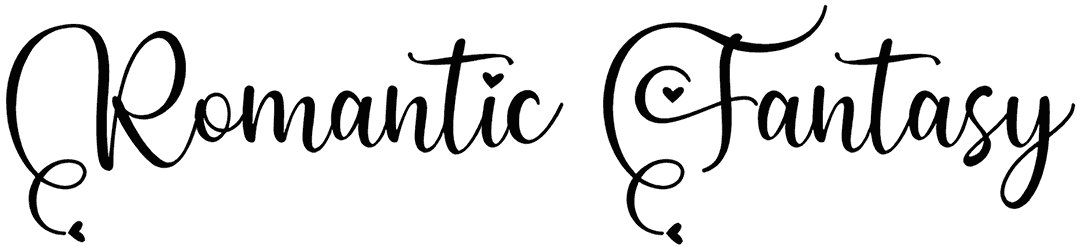
Romantic Fantasy Font
Romantic Fantasy is a font designed for the holidays with a romantic vibe. Using this font to create posters, greeting cards, etc., can provide stylish results. But be warned, it’s not the easiest thing to read.
This charming font will turn any creative idea into a standout.